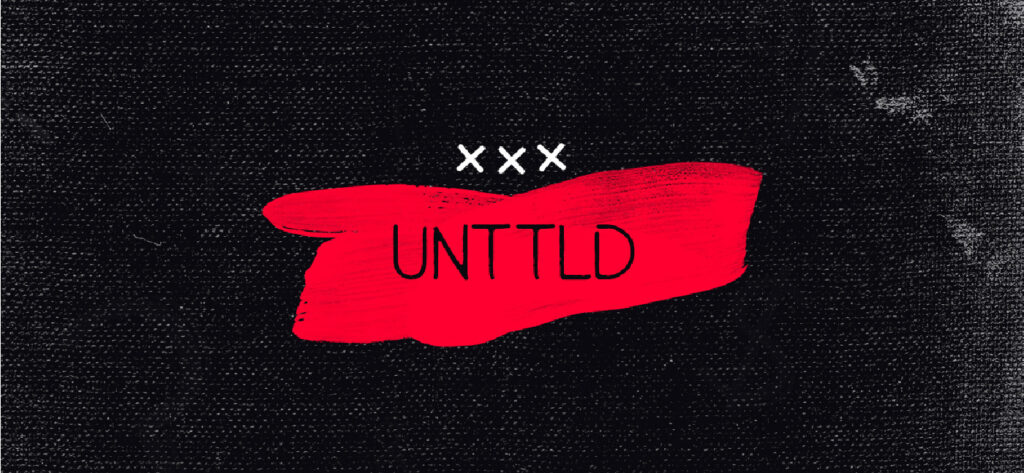
UNTTLD – free font designed and shared by Vlad Derkach . UNTTLD A little grunge and rusted font include latin & cyrillic (russian and ukrainian) uppercase alphabet, numerals, and other glyphs.